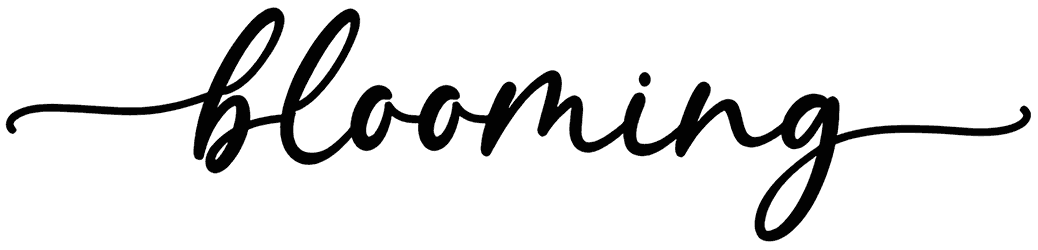
Blooming Font
The smooth connections of Blooming give it an original and authentic look that makes it a bit illegible; this does not present itself as a significant issue. This poetry font has a beautiful concept that makes the eyes dance on itself and gives a sincere atmosphere to your projects.
So if you’re looking to create a different feel with subtle connections on your posters, wedding cards, invitations, and friendly letters, make room for Blooming in your collection.